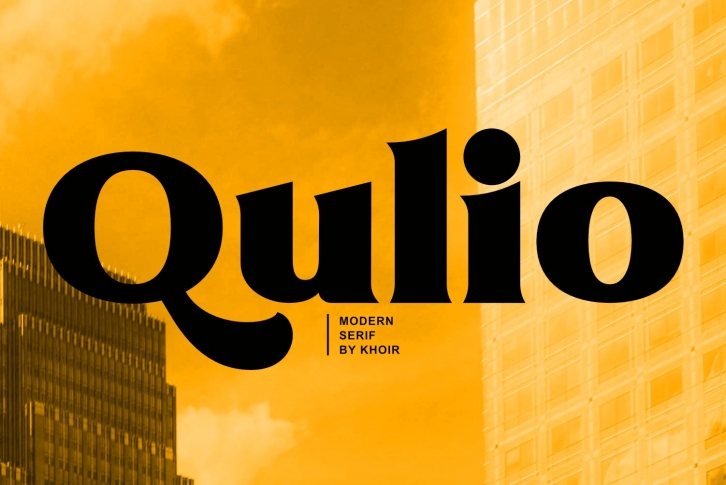
Qulio is a great font that was designed by khoir. Imagine the amount of combinations you can create using this font! The archive is 8.47 MB and it was released on January 28, 2021. Qulio looks beautiful on wedding invitations, greeting cards, logos, posters, labels, t-shirt designs, logos, business cards and is perfect for use in ink or watercolor works, fashion, magazines, packaging and food menus, children's books and more!